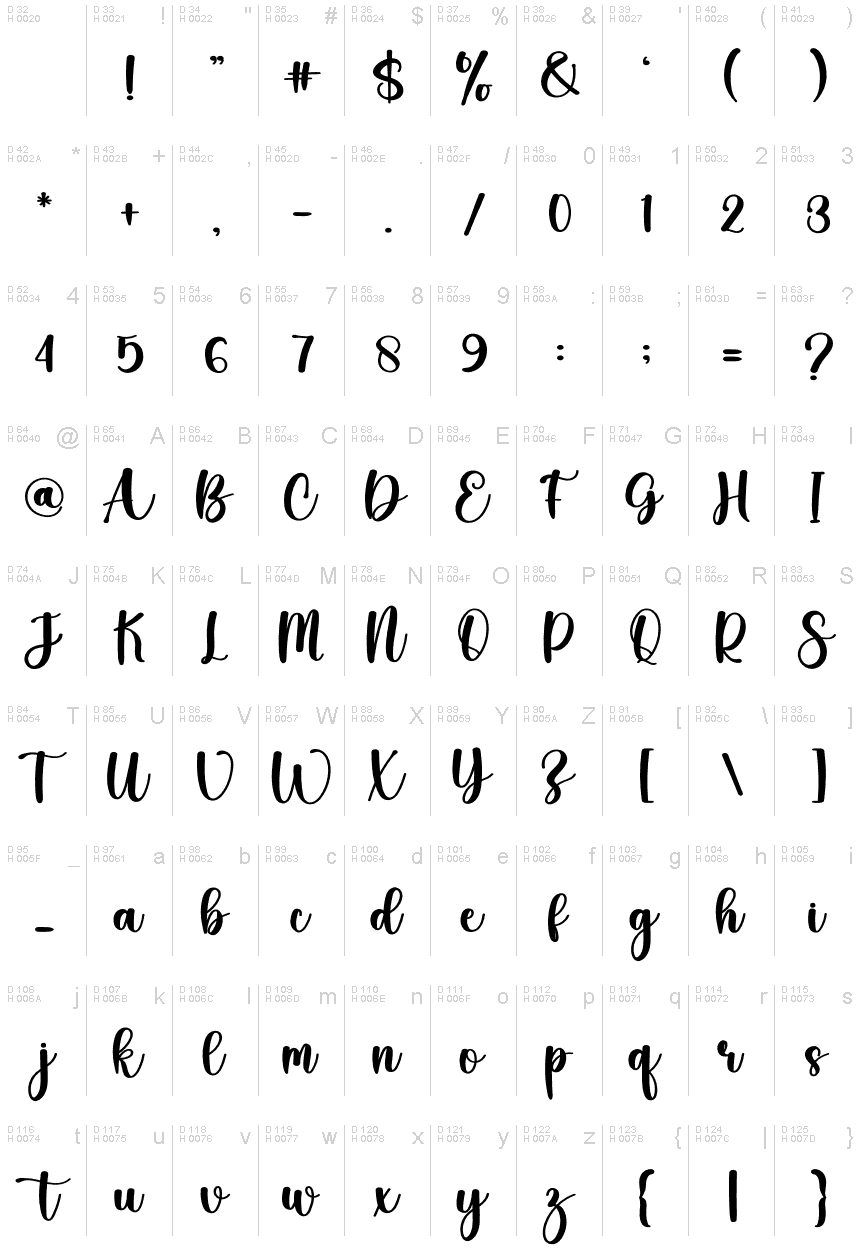
Hamster
Hamster is a beautiful calligraphy font designed by Inermedia Studio. It will bring a unique elegance to any project, from invitations and stationery to web graphics and logos. Its graceful curves make it the perfect choice for creative projects like poetry, book covers and inspirational posters.